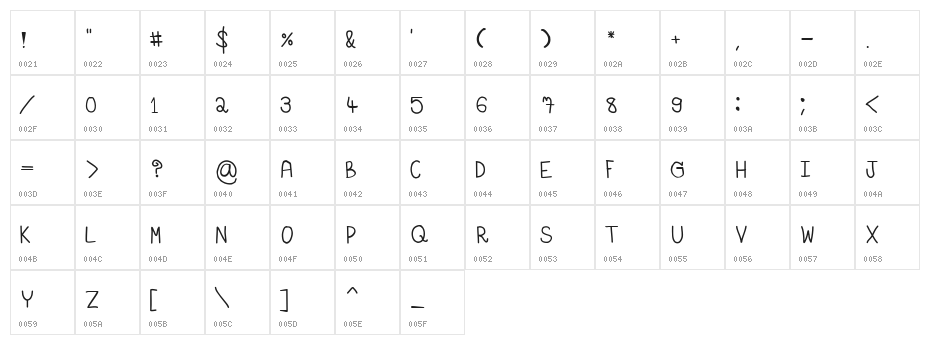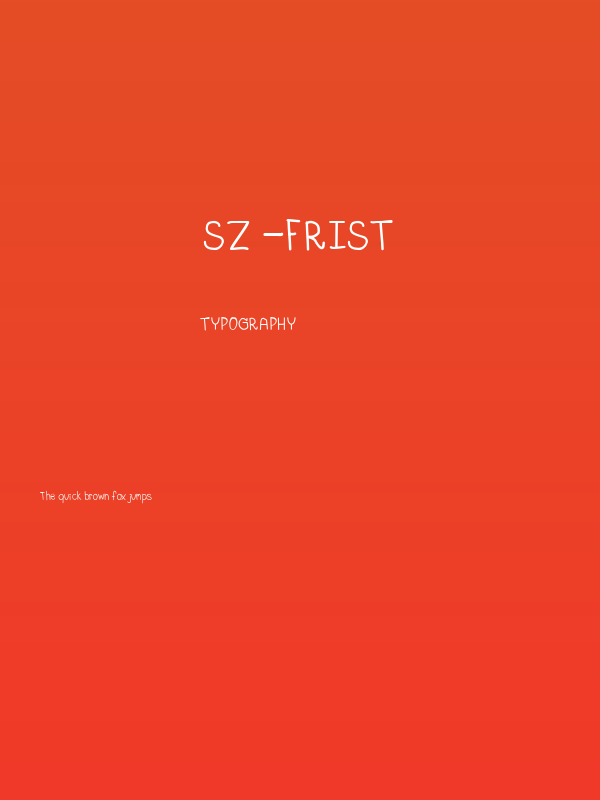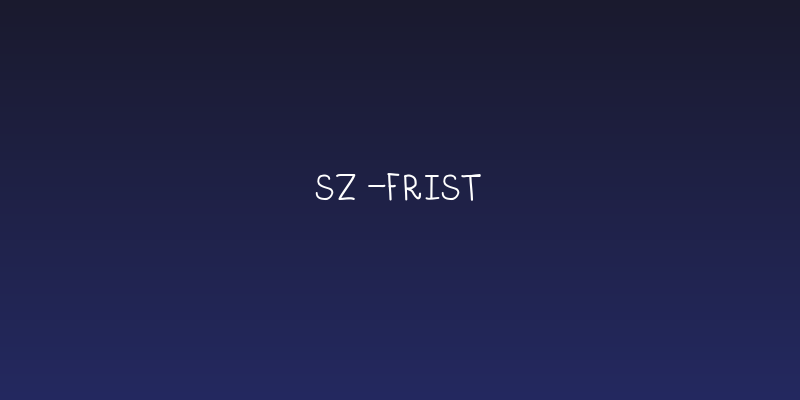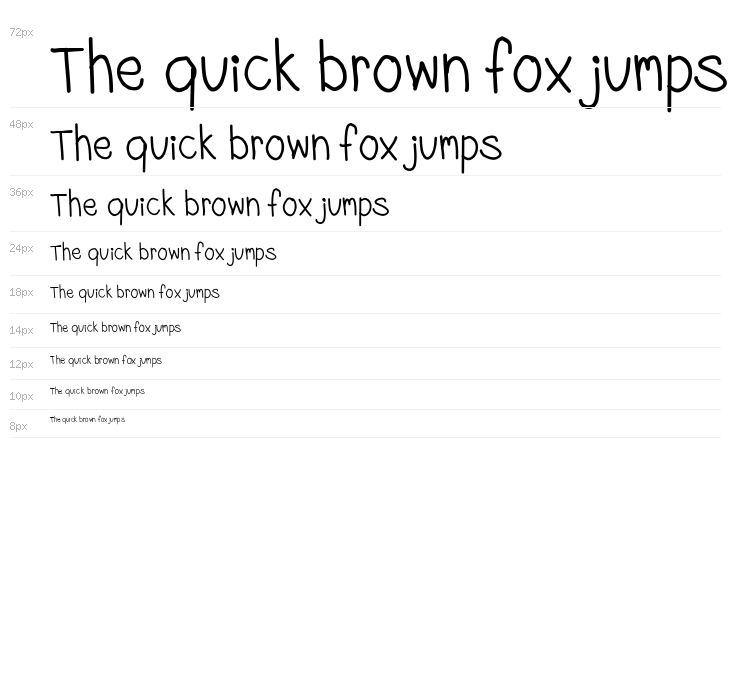
sz-frist Font
sz-frist Description
This font features a playful and informal handwritten style, characterized by its uneven strokes and slightly irregular letterforms. The uppercase letters are bold and prominent, while the lowercase letters maintain a consistent flow with a casual appearance. The numerals are distinct and easy to read, matching the overall whimsical aesthetic. Special characters are creatively designed, adding to the font's charm. The font's organic feel makes it suitable for projects that require a personal touch or a fun, lighthearted vibe.
| Proposed Projects | Ideal for children's books, greeting cards, casual invitations, and playful branding. |